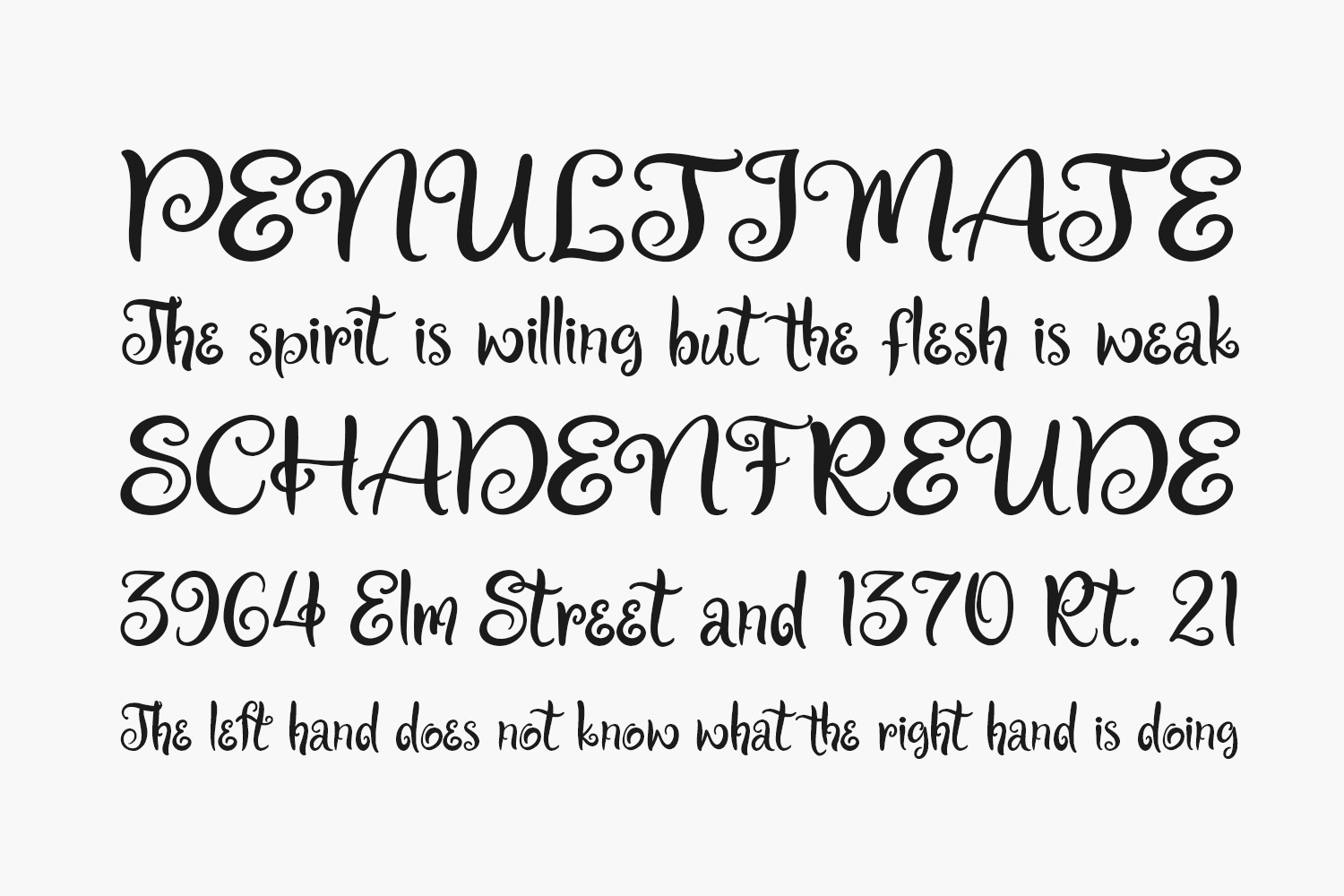
Discover the enchanting Black Magic Free Font display font, radiating a delightful and whimsical charm. This versatile typeface is an ideal choice for elevating your brand identity, crafting memorable logos, fashioning unique lettering, curating captivating logotypes, enhancing clothing designs, adorning posters, gracing magazine layouts, adding allure to packaging, adorning shopping bags, imprinting style on t-shirts, infusing elegance into book covers, lending an artistic touch to photography, and setting the stage for special events and various design endeavors. Black Magic Free Font is free for personal use only. Please purchase the full version for commercial use.
Designed by Alpaprana Studio